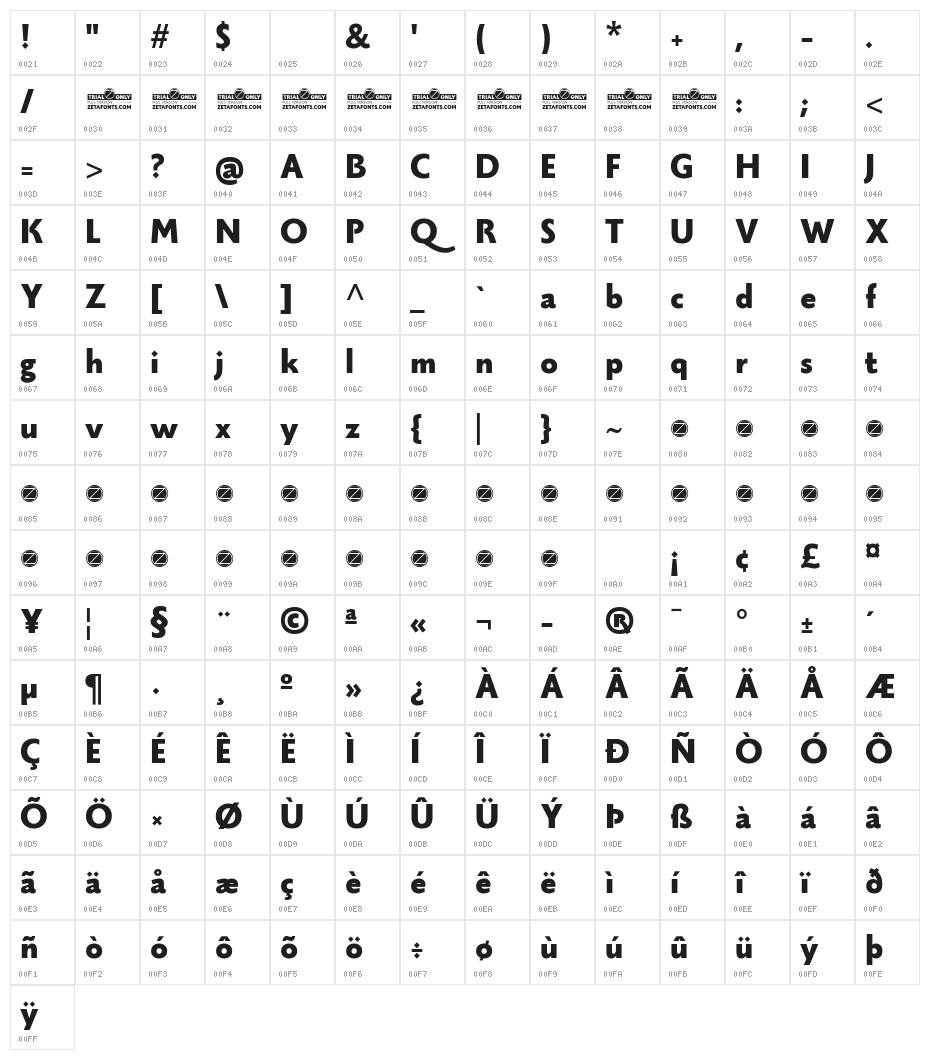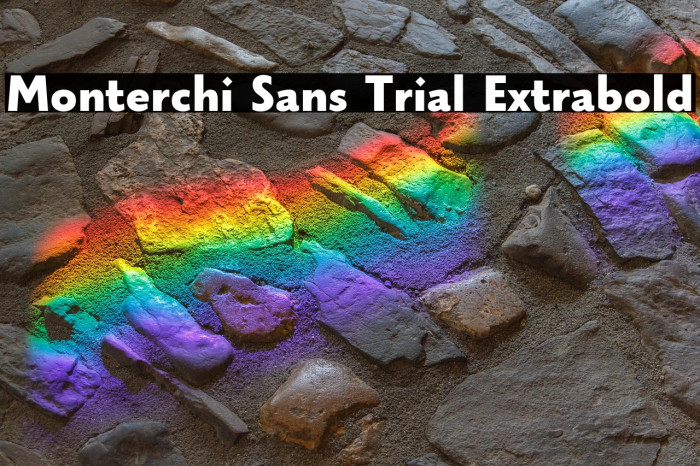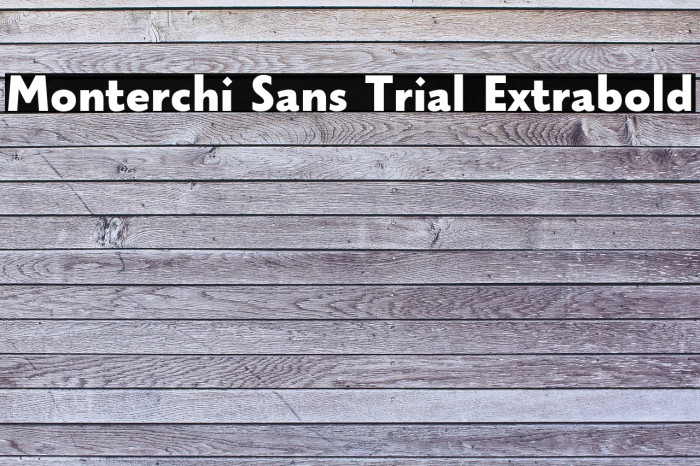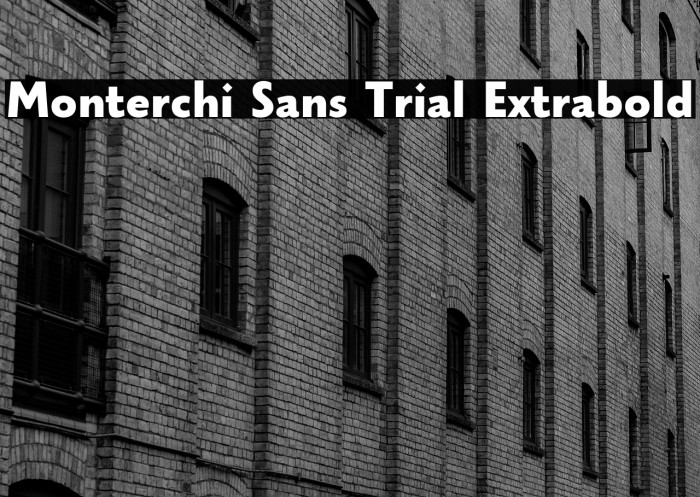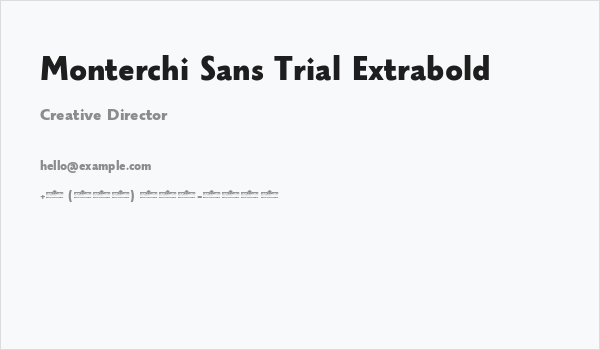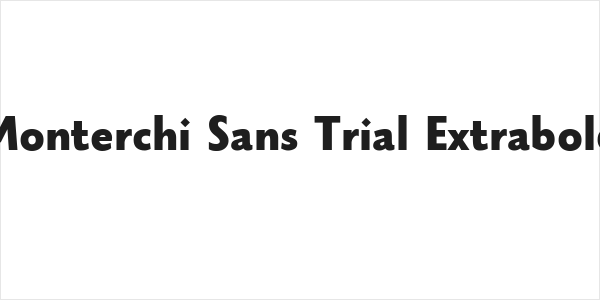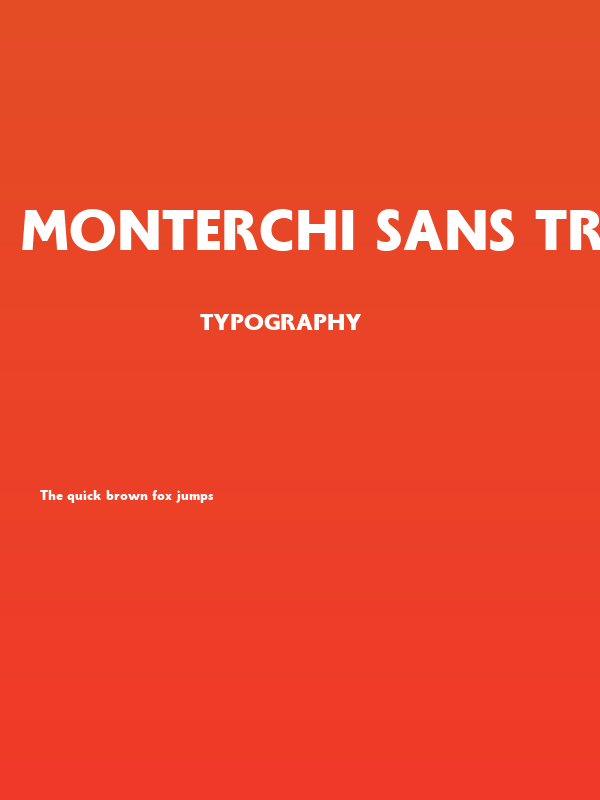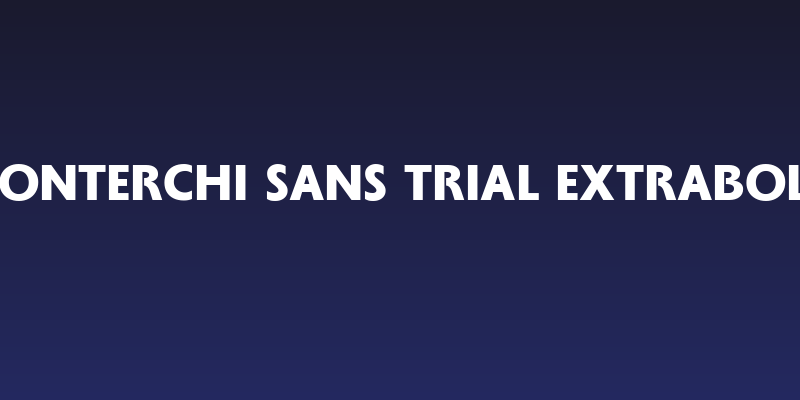
Monterchi Sans Trial Extrabold Font
Monterchi Sans Trial Extrabold Description
This font features a bold and assertive style with clean, geometric lines and a modern aesthetic. The uppercase letters are strong and impactful, while the lowercase letters maintain a consistent weight and structure, providing a harmonious balance. The font's design includes unique elements, such as the curved tail on the uppercase 'Q' and the distinctive dot accents on the lowercase 'i' and 'j'. The numerals are clear and easily legible, complementing the overall boldness of the typeface. Special characters are well-integrated, maintaining the font's cohesive look. This typeface is ideal for making a strong visual statement.